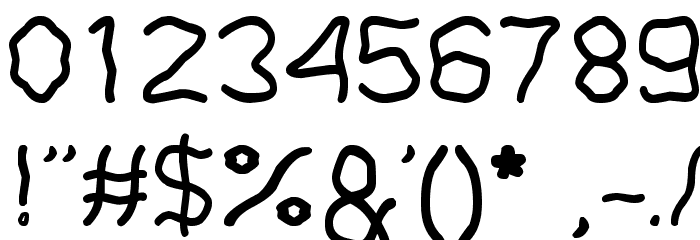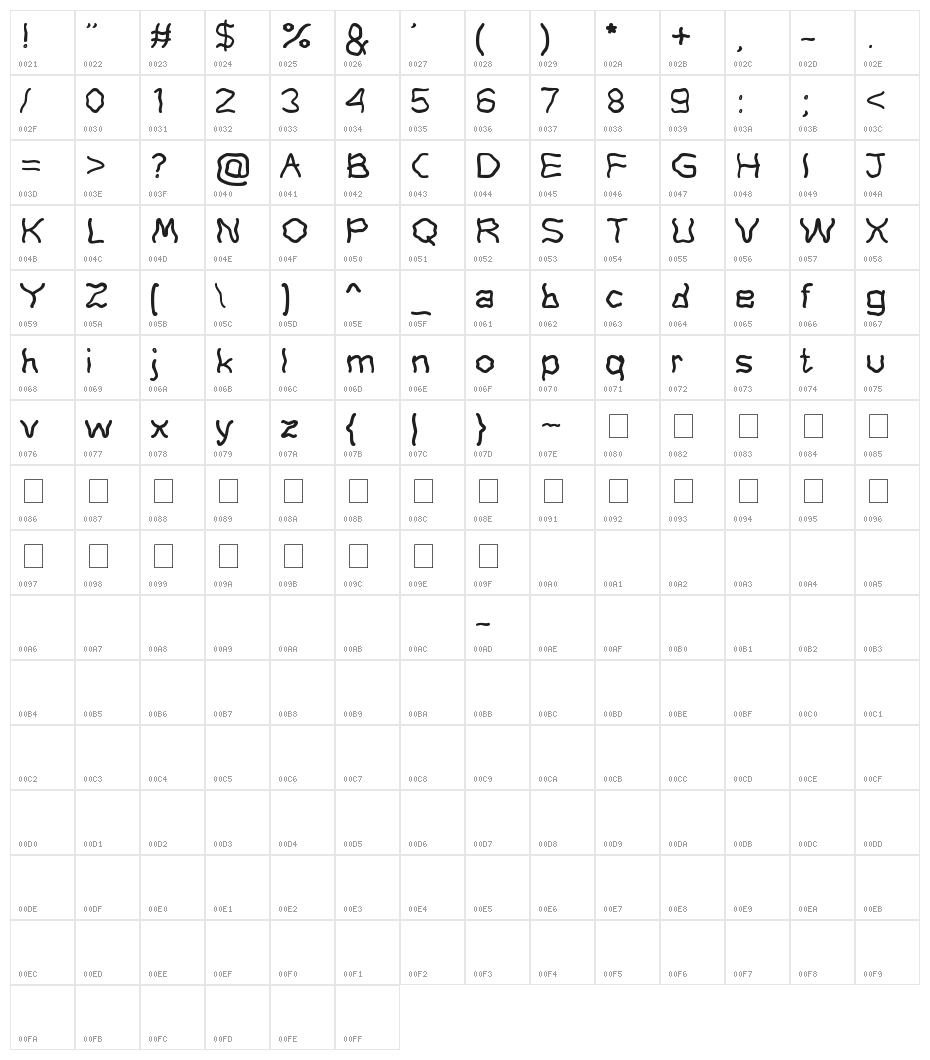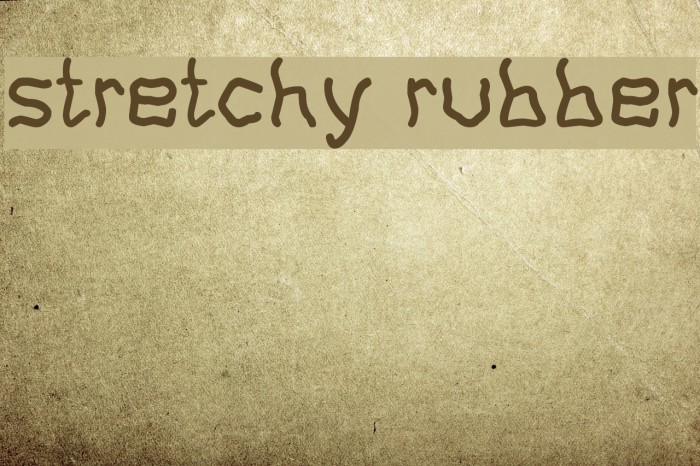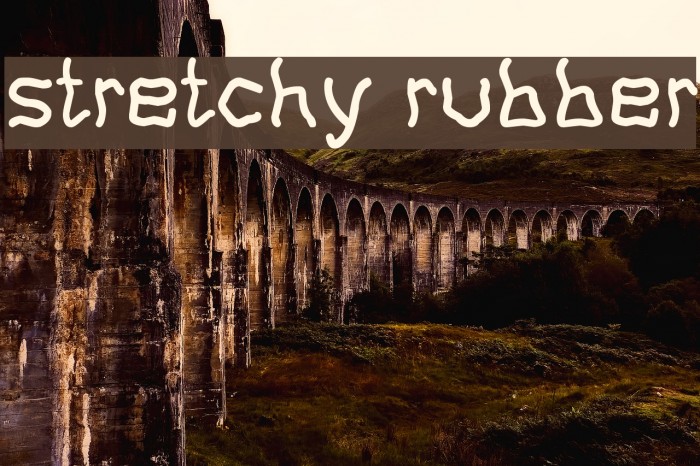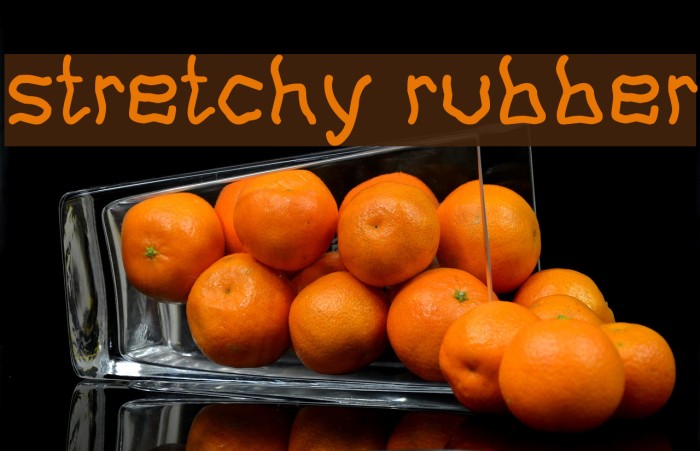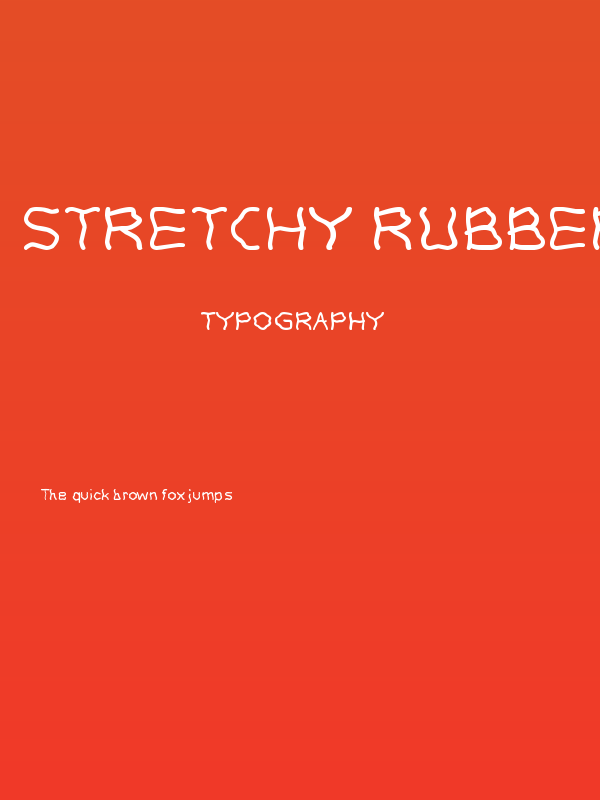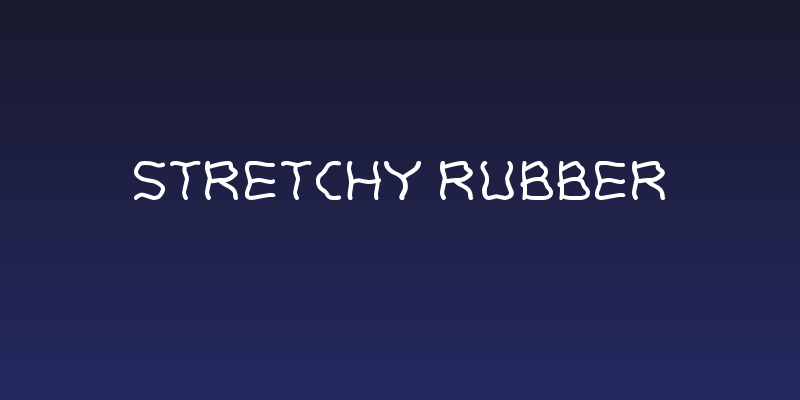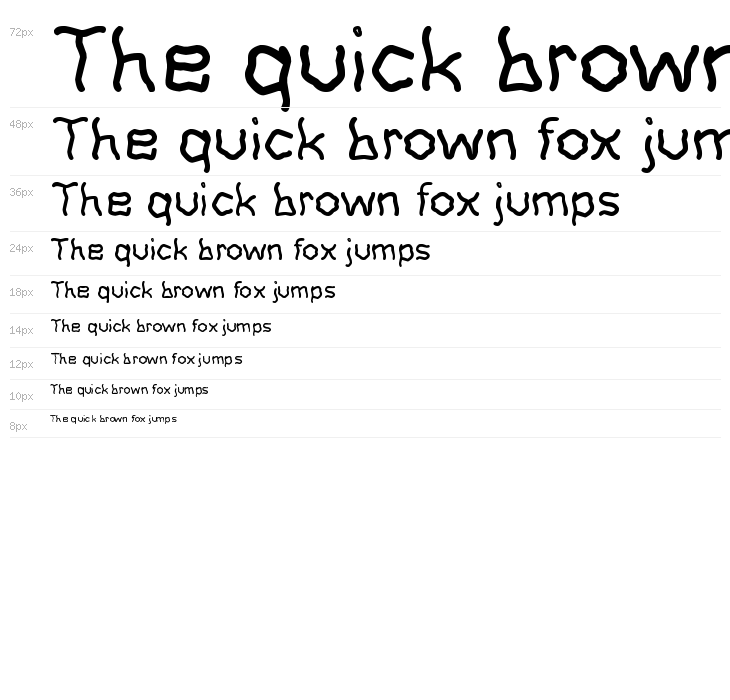
stretchy rubber Font
stretchy rubber Description
This playful and whimsical font features a unique, hand-drawn style that mimics the appearance of stretchy rubber. The characters have an irregular, organic shape, giving them a lively and dynamic feel. The strokes are uneven, with a slightly wobbly texture that adds to the font's charm. This font is perfect for projects that require a fun and informal touch, such as children's books, playful branding, or creative posters. Its distinct style makes it stand out, ensuring that any text set in this font will capture attention and convey a sense of creativity and spontaneity.
| Proposed Projects | Ideal for children's books, playful branding, creative posters, and informal invitations. |